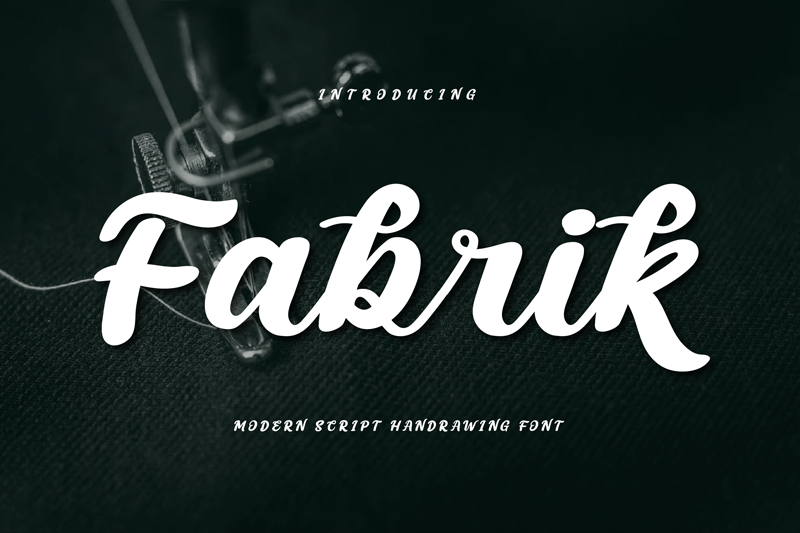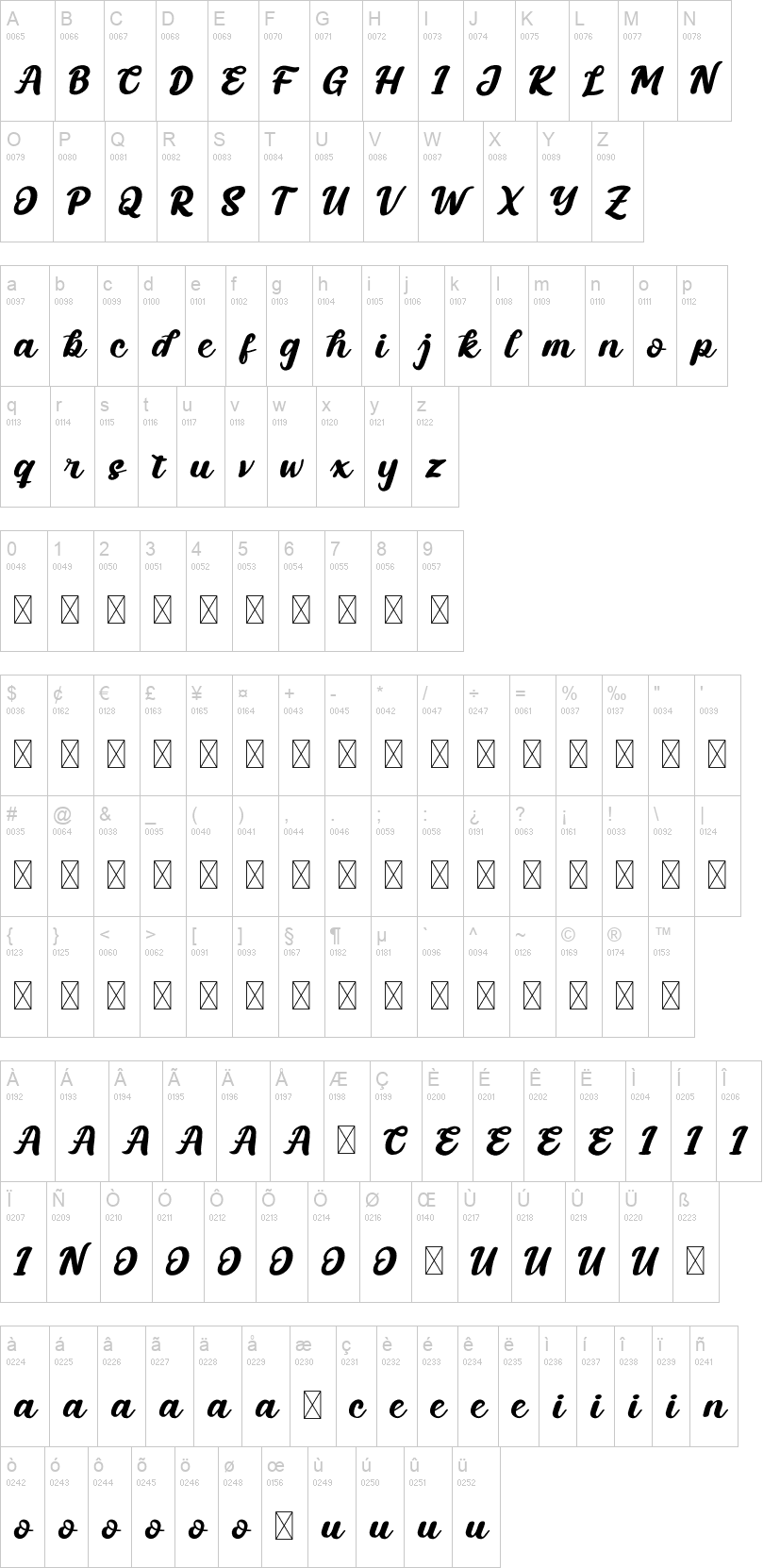
Note of the authorintroduce My font, this font is a script font that is connected with clear style and dramatic movements.
This font comes with uppercase letters, lowercase letters, numbers, punctuation marks, and so many variations on each character including alternating opentypes, common binders and additions to make you customize your design. Perfect to use for Logotype, Letterhead, Posters, Clothing Designs, Labels and all designs that require handwriting